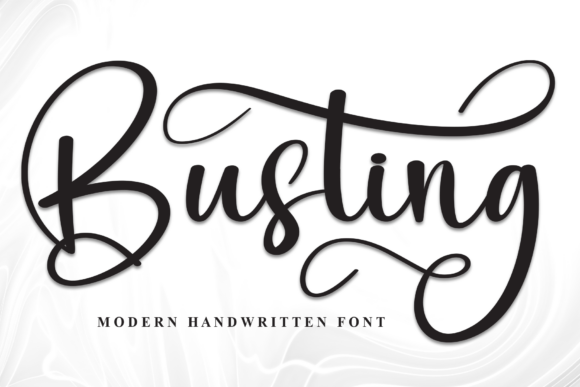
Busting Font: Elevate Your Designs with Elegance and Sophistication
Are you looking for a font that exudes style, elegance, and sophistication? Look no further than Busting Font, a beautiful script font that can elevate your designs to new heights. In this article, we’ll dive into the world of Busting Font, exploring its features, uses, and benefits for designers and crafters.
What is Busting Font?
Busting Font is a stylish and incredibly elegant script font that is perfect for adding a handwritten touch to your designs. With its flowing curves and refined lines, this font is sure to impress. Whether you’re working on a wedding invitation, thank you card, quote, greeting card, logo, or business card, Busting Font is the perfect choice.
Key Features of Busting Font
- Elegant and Sophisticated: Busting Font boasts a refined and elegant design that is perfect for high-end designs.
- Script Style: This font features a beautiful script style that adds a touch of personality to your designs.
- Handwritten Touch: Busting Font has a handwritten feel that makes it perfect for designs that require a personal touch.
- Versatile: This font can be used for a wide range of designs, from wedding invitations to business cards.
Uses of Busting Font
Busting Font is a versatile font that can be used for various design projects. Here are some of the most popular uses of this font:
- Wedding Invitations: Add a touch of elegance and sophistication to your wedding invitations with Busting Font.
- Thank You Cards: Express your gratitude with style using Busting Font on your thank you cards.
- Quotes: Make your quotes stand out with the elegant and refined design of Busting Font.
- Greeting Cards: Create beautiful greeting cards for special occasions using Busting Font.
- Logos: Use Busting Font to create a sophisticated and elegant logo for your brand.
- Business Cards: Elevate your business cards with the refined design of Busting Font.
Benefits of Using Busting Font
So, why should you choose Busting Font for your designs? Here are some benefits of using this font:
- Unique and Eye-Catching: Busting Font is a unique and eye-catching font that can help your designs stand out.
- Elegant and Sophisticated: This font exudes elegance and sophistication, making it perfect for high-end designs.
- Easy to Read: Busting Font is easy to read, even in small sizes, making it perfect for a wide range of designs.
- Customizable: This font can be customized to fit your design needs, making it a versatile choice.
Tips for Using Busting Font
Here are some tips for using Busting Font effectively in your designs:
- Pair with Simple Fonts: Pair Busting Font with simple fonts to create a beautiful contrast.
- Use for Headings: Use Busting Font for headings and titles to add a touch of elegance.
- Keep it Simple: Keep your design simple and clean to let Busting Font shine.
In conclusion, Busting Font is a beautiful and elegant script font that can elevate your designs to new heights. With its refined lines, flowing curves, and handwritten touch, this font is perfect for adding a touch of sophistication and elegance to your designs. Whether you’re a designer or crafter, Busting Font is a versatile choice that can be used for a wide range of projects. So, why not give it a try and see the difference it can make in your designs?